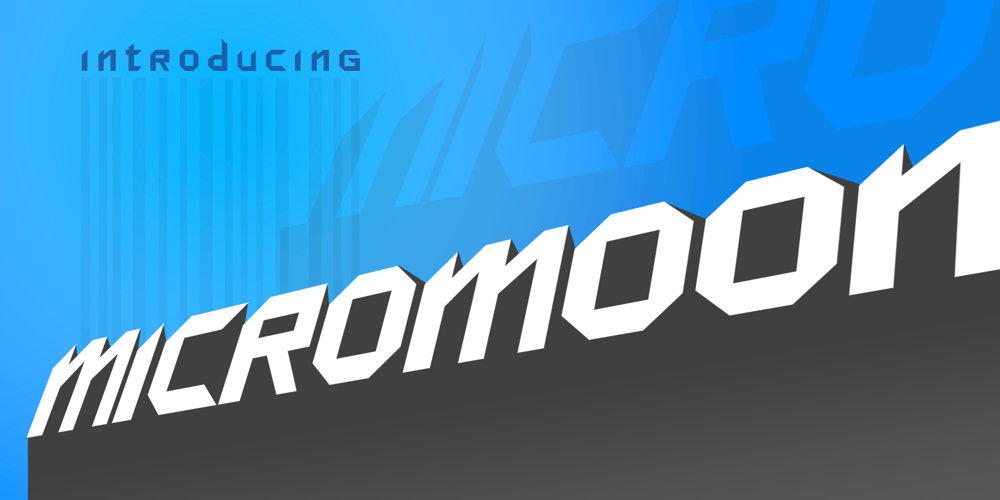
Micromoon Font Family was designed by Tom Raaijmakers and published by Neoglyph Studio. Micromoon contains 1 styles and family package options. Inspired by futuristic vehicle print designs like seen in Star Trek, Blade Runner, Altered Carbon and the Alien franchise. The goal was a clean, abstract design where horizontal, vertical and diagonal 45 degree lines are the primary guidelines.Features : uppercase and lowercase numbers and punctuation multilingual Ideal for: Logo design Movie promotion Book & magazine print Package design Vehicle print designs Game design